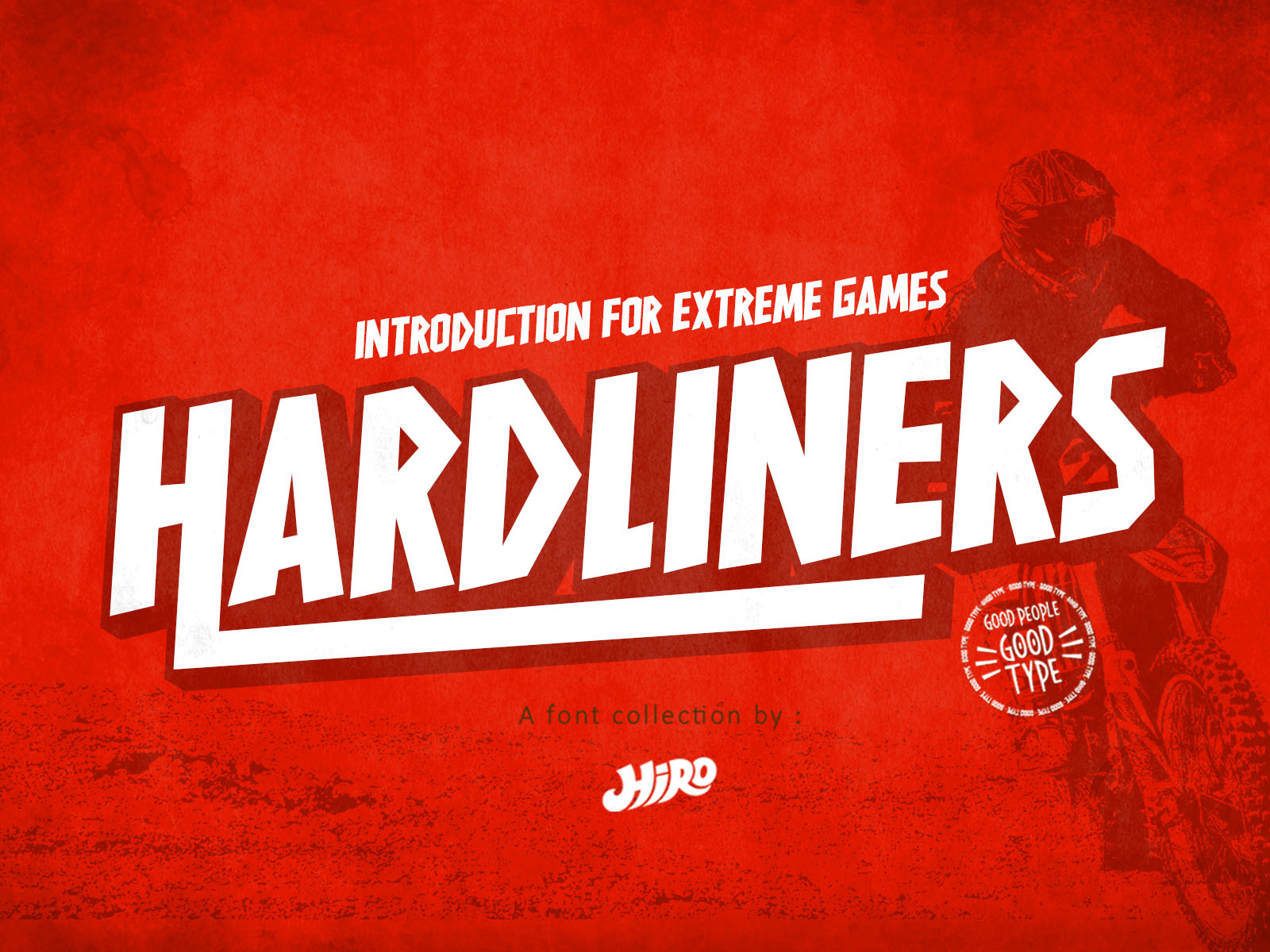
HARDLINERS (Font)
HARDLINERS is a Bold Capital variations consisting of typeface : - HARDLINERS Regular - HARDLINERS Extrude - HARDLINERS Shadow - HARDLINERS Outline - HARDLINERS other).
HARDLINERS has more 456 Glyphs Bold Capital and you can have fun combining according to what you want accompanied by also the alternate styles they have
This font template contains extreme, strong, cool, dynamic, easy to use and very suitable for extreme games.
USE HARDLINERS works great in any branding, logos, magazines, films, apparel, poster, and of course your board.